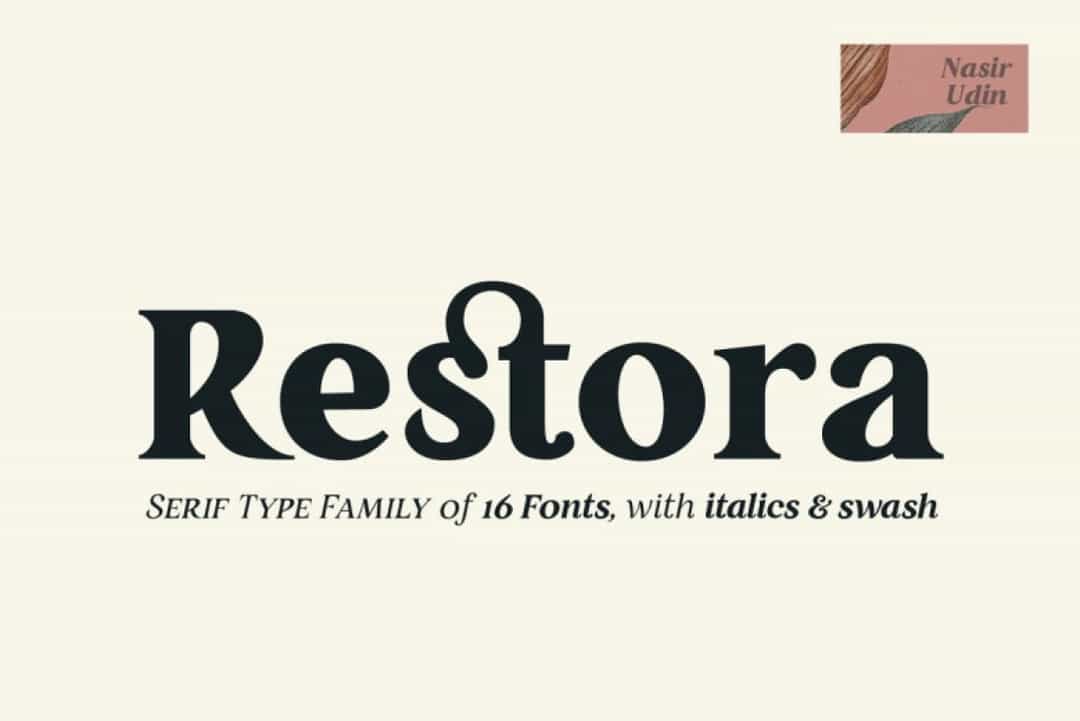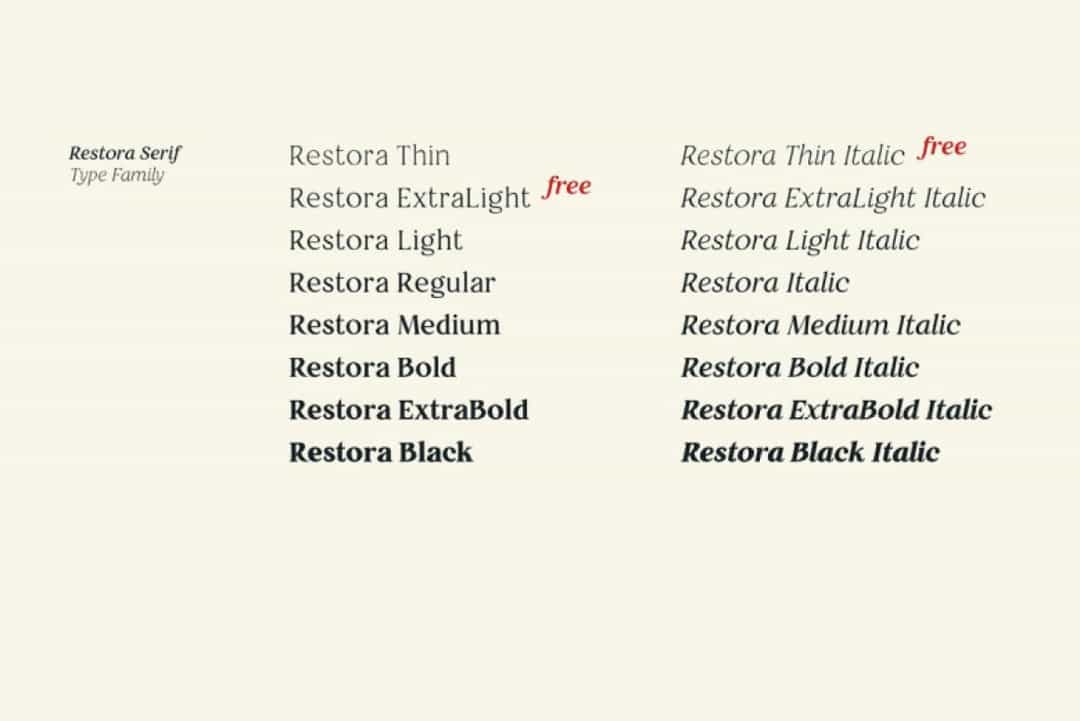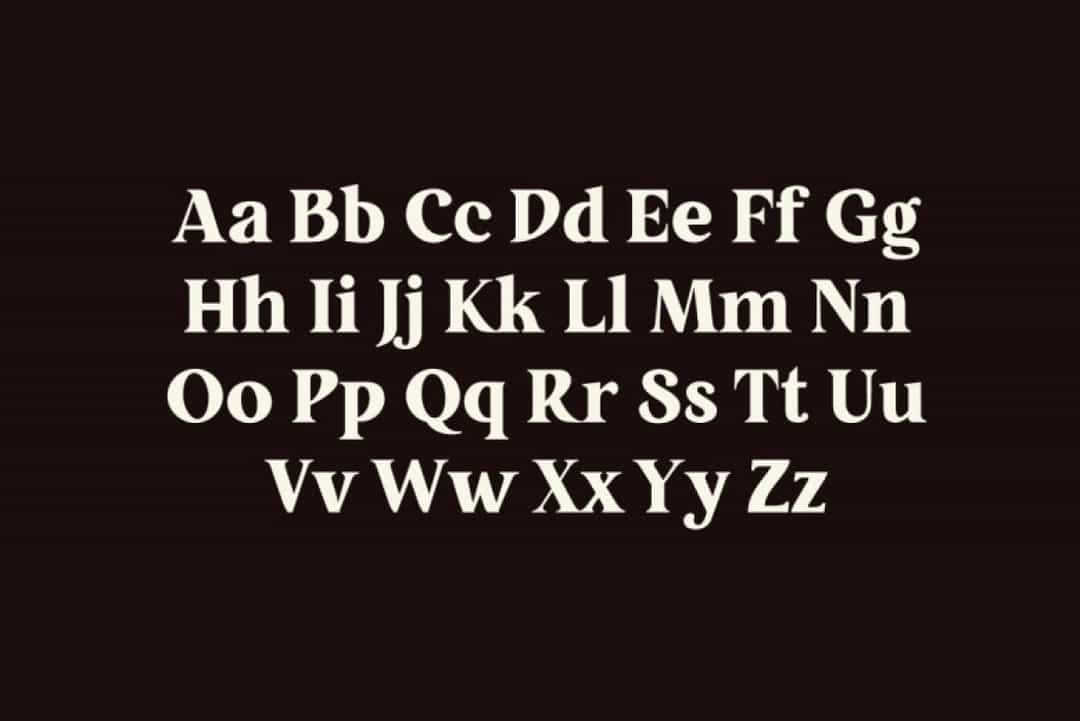
Restora Font is a combination of roman serif fonts that have been designed in a peculiar way. The letters are beautiful, and the serifs are classical that the brand has inherited from the past; Restora thus offers an extremely flexible typeface family, which can be used in various designs. font is available in eight weights from thin to black with italics that correspond to them. Every weight gives an opportunity to choose from different styles for the typeface to fit the requirements of your work from body text to the large headlines; from traditional to the modern or even aggressive looking.